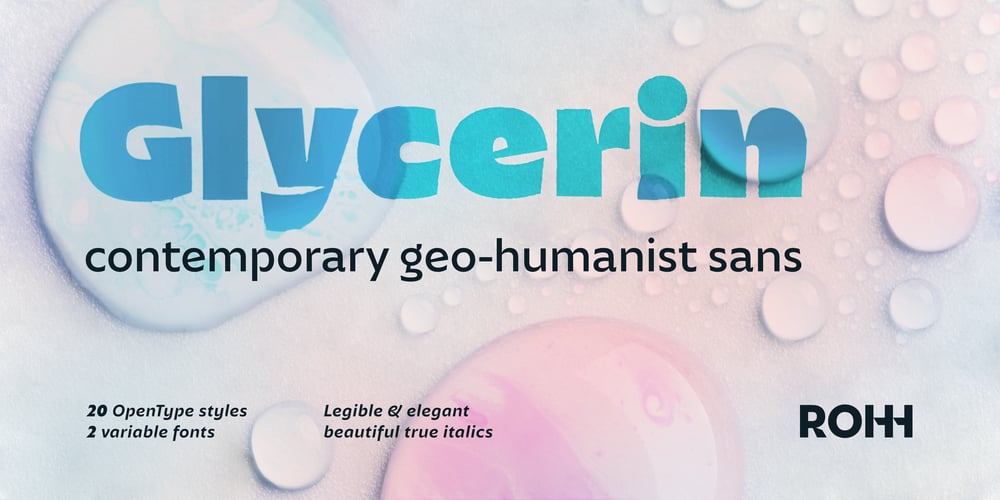
Glycerin
Glycerin font
Glycerin Font Family was designed by Roch Modrzejewski and published by ROHH. Glycerin contains 24 styles and family package options. Glycerin is a contemporary geo-humanist sans with an unmistakable personality—clear, confident, and radiating style. It has the right mix of precision, elegance and warmth—perfect for keeping things professional but never boring. Glycerin is fully equipped with the tools you need, whether you’re creating corporate identities, editorial designs, or brand messages.The family’s beautiful true italics bring a natural sophistication to your work, while an alternate stylistic set lets you explore a minimalist, geometric angle when the mood strikes. And if you want to spice things up, throw in Gigafly, Glycerin’s eccentric display sibling, and watch the sparks fly!Key Features• 22 styles (11 weights + italics)• 2 variable fonts• sharp true italics• alternate stylistic set, simplified and geometric• over 1150 glyphs• Extended Latin language support